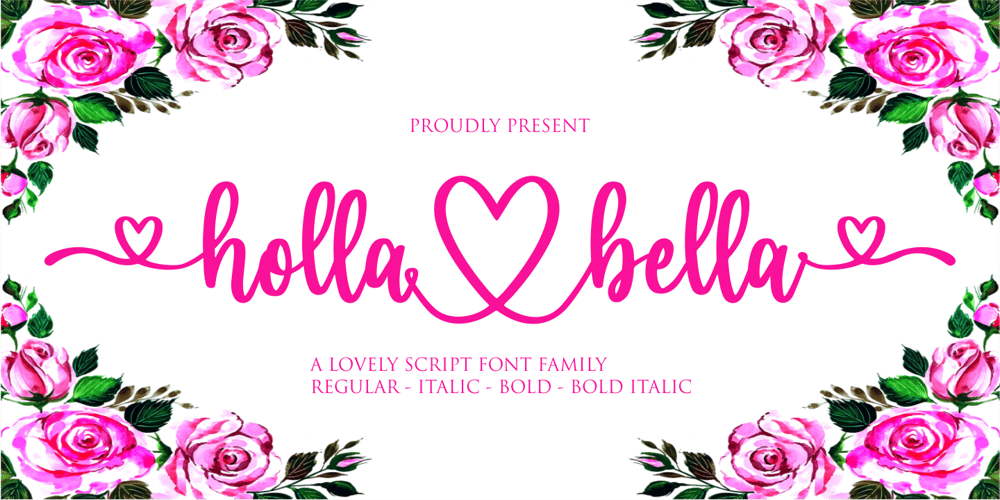
Holla bella Font Family was designed by Siti Nurjanah and published by NJ Studio. Holla bella contains 4 styles and family package options. Hi…Thank for your visit :)Holla bella a lovely script font family is a beautiful script font. It features love-themed characters that will take your projects to the next level!This font is PUA code which means you can easily access all the glyphs and swashes that are full of love! It also features many special features including glyphs and alternate ligatures. font designs that are made for various vector designs, printing such as digital wedding blogs, online shops, social media, while printing can be used in the field of product clothing, accessories, bags, pins, logos, business cards, watermarks and many others …so it can make your product look cute and attractive, and also Multilingual support!!!Happy design …